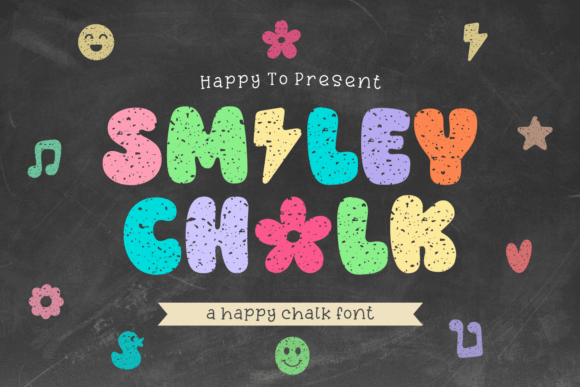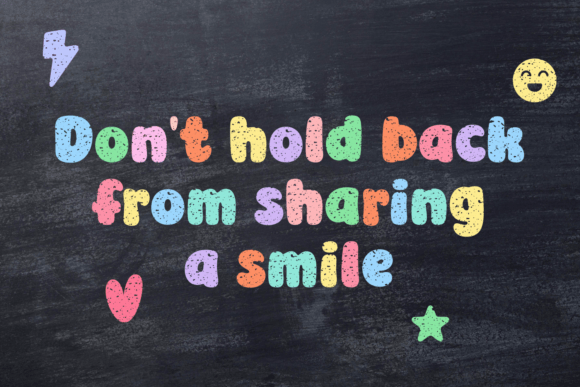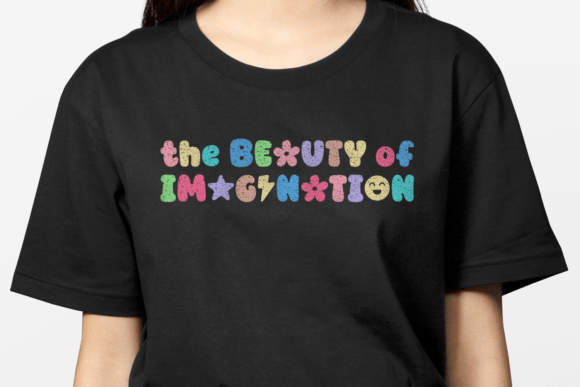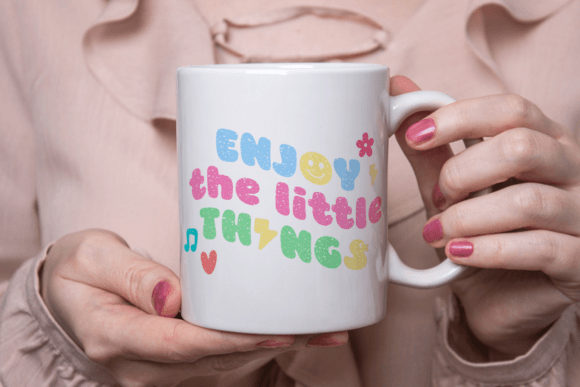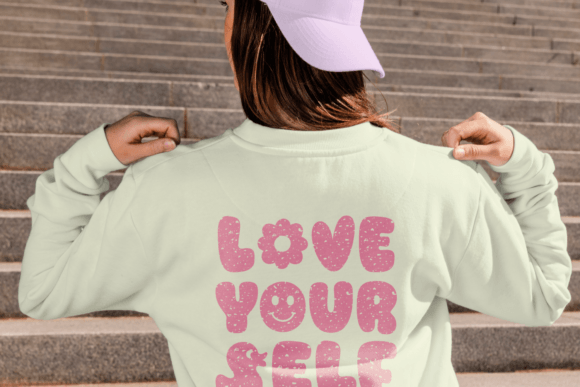
Smiley Chalk Font
Get ready to make a bold statement with Smiley Chalk, a playful and eye-catching display font. Featuring a bulky and fun design, this font is perfect for creating attention-grabbing headlines, posters, and other design projects that demand a big personality. With its unique style and quirky personality, this font is sure to turn heads and spark conversation.